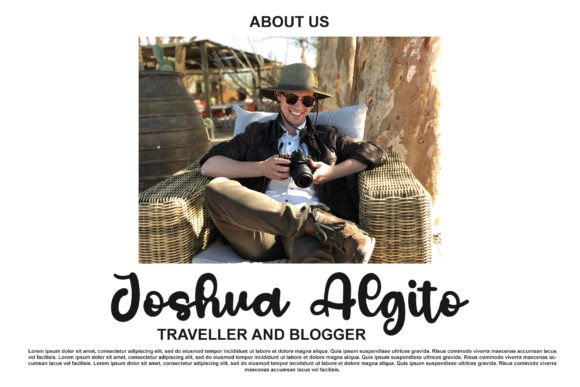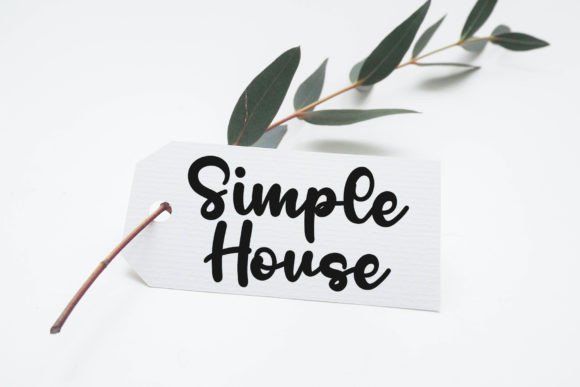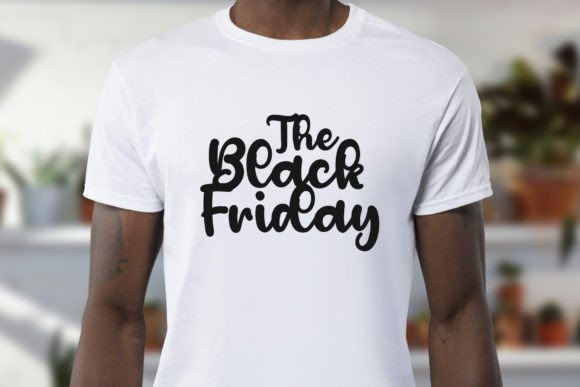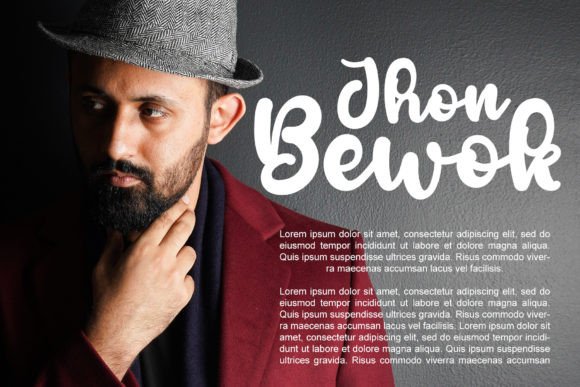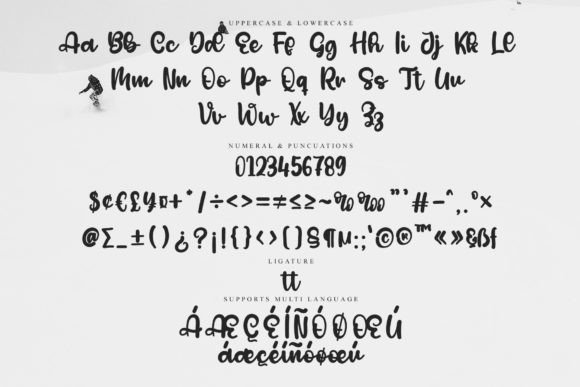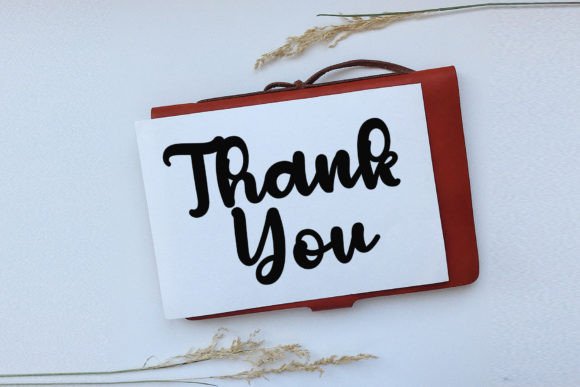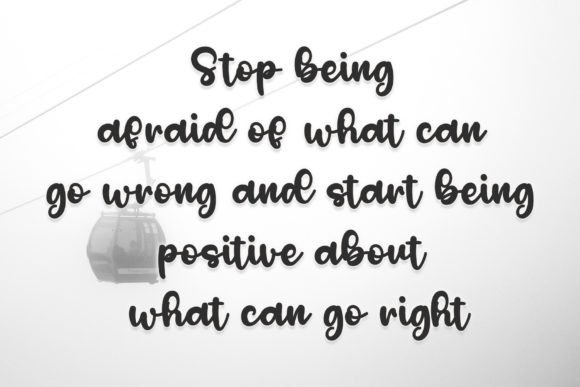
Blocking Font
About Blocking Font
Make a Bold Impression with the Blocking Font
If you’re searching for a handwritten font that combines style with versatility, the Blocking font download is just what you need. This modern script typeface brings a sleek and trendy look to every project, whether personal or professional.
Ideal for Branding, Packaging, and More
You can use the Blocking font in a wide range of creative projects. From eye-catching headlines and greeting cards to elegant branding and product packaging, this typeface adapts beautifully to every use case. It adds a touch of charm without sacrificing clarity.
Clean, Stylish, and Easy to Read
Despite its handwritten nature, Blocking maintains a clean structure and easy readability. It was thoughtfully designed to strike a balance between modern flair and classic usability. Whether you’re designing logos, invitations, or merchandise, this font makes a great choice.
User-Friendly with Broad Compatibility